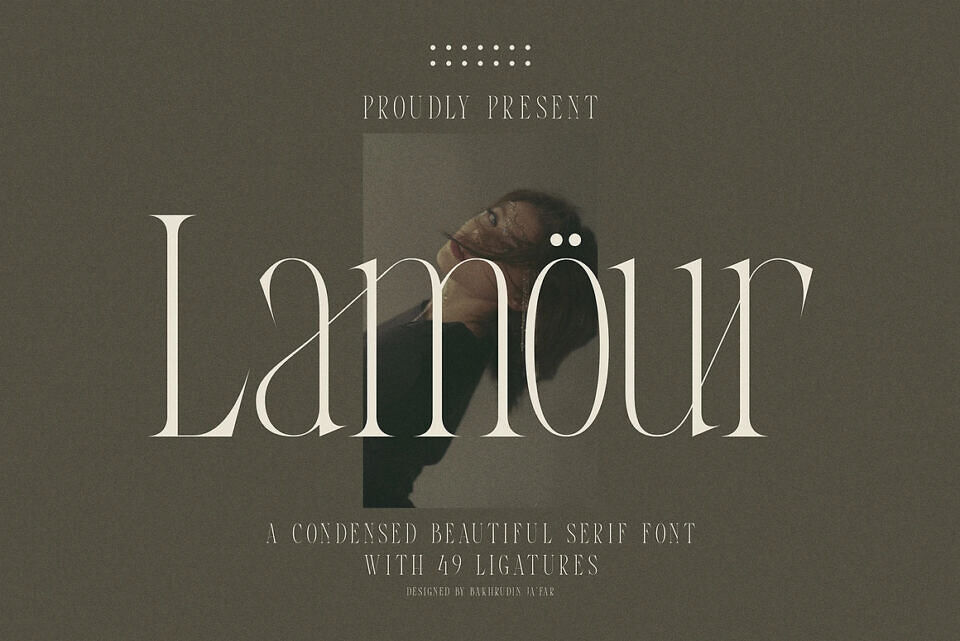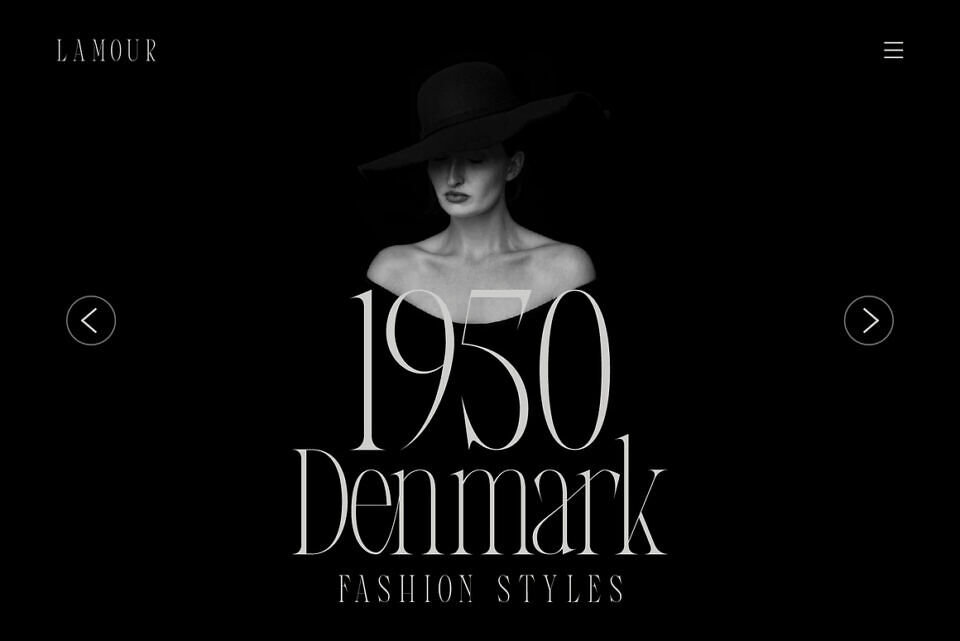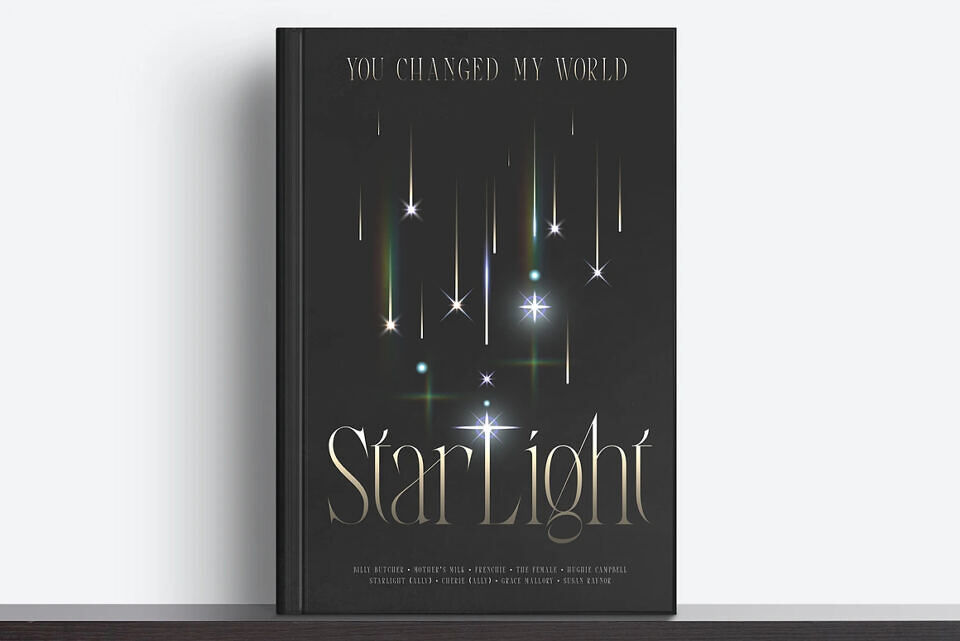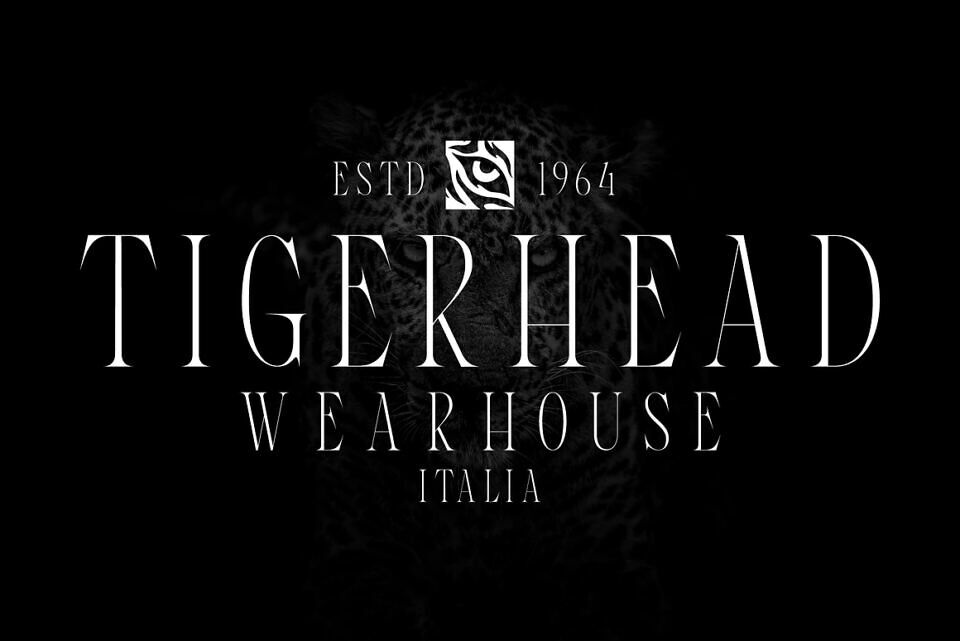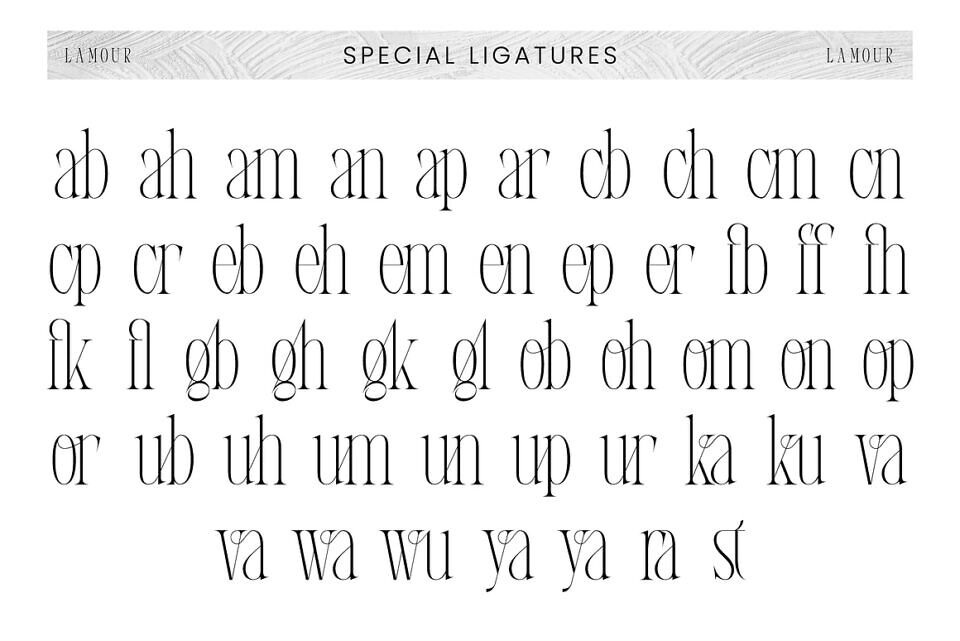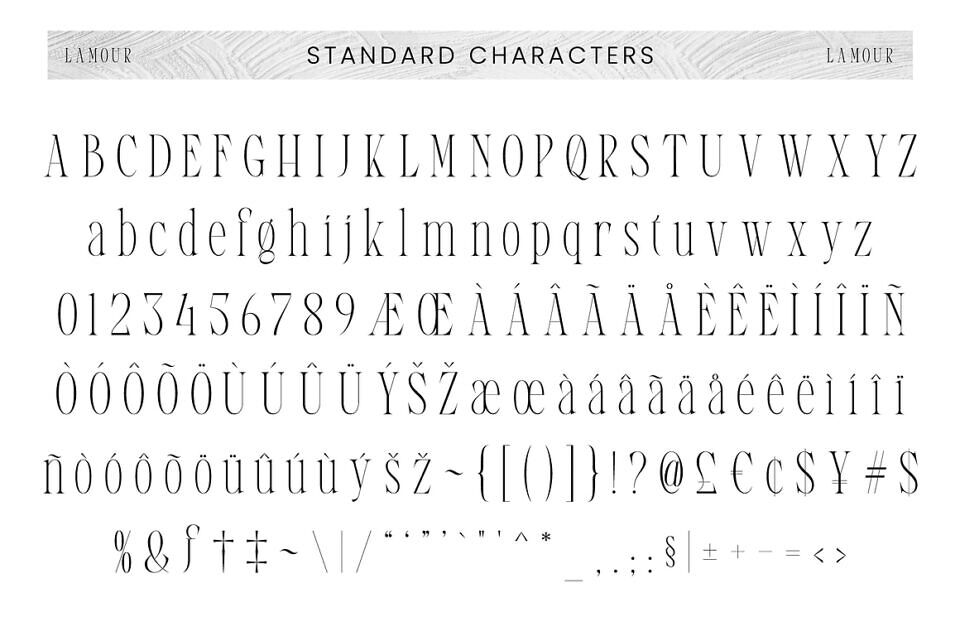
Lamour Font
Lamour is a refined and elegant condensed serif typeface that embodies timeless sophistication. Its tall, slender letterforms and subtle high-contrast strokes exude grace and femininity, making it perfect for designs that need a touch of luxury and emotional depth.
Every curve and serif detail has been meticulously crafted to convey elegance with a modern twist. Featuring 49 beautiful ligatures, Lamöur allows designers to create expressive typography compositions that feel both classic and contemporary.
Its condensed proportions make it an ideal choice for editorial layouts, high-end branding, and elegant logotypes, ensuring a distinctive and stylish look across all media. Perfect for fashion campaigns, perfume packaging, magazines, and wedding invitations, Lamöur elevates every design with its romantic charm and delicate sophistication.